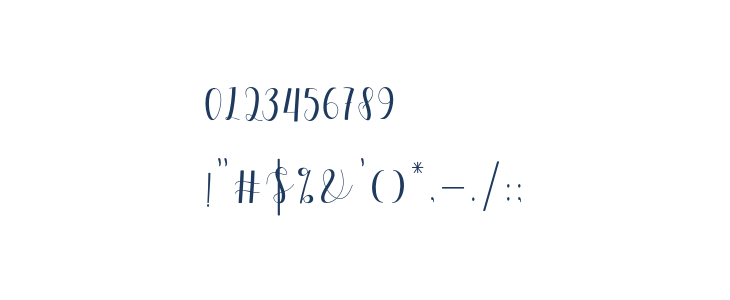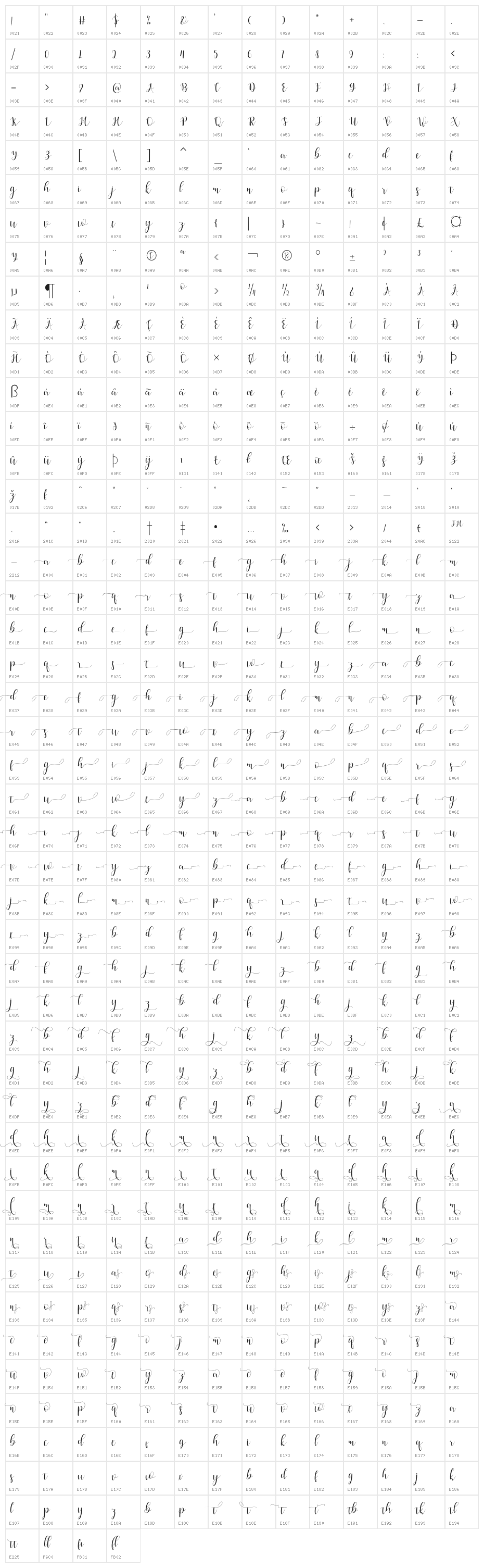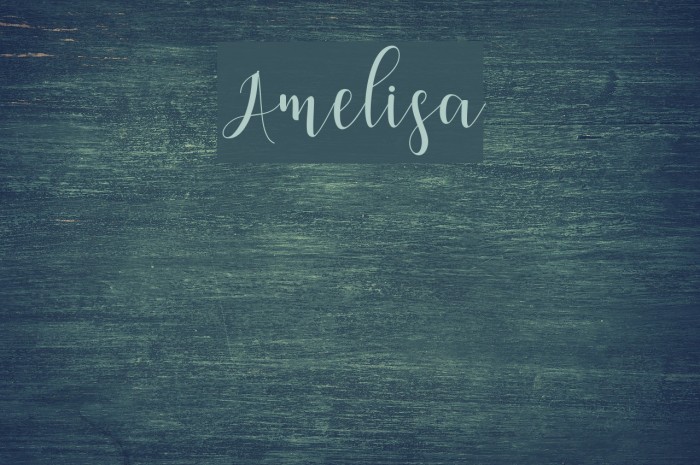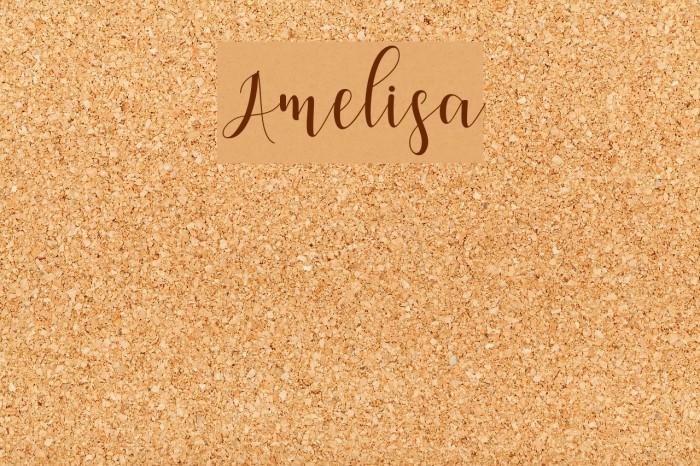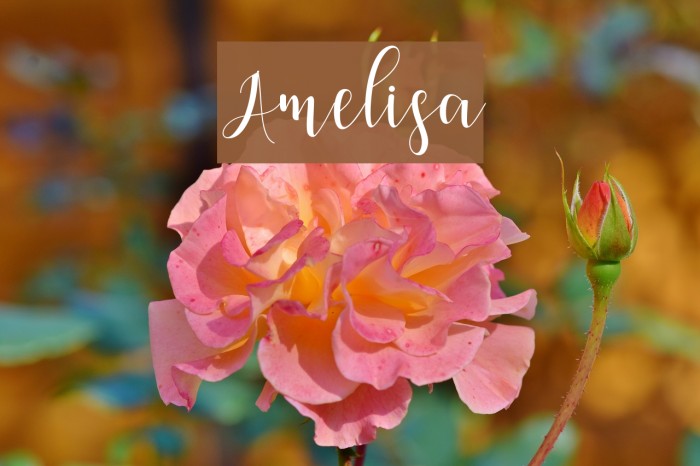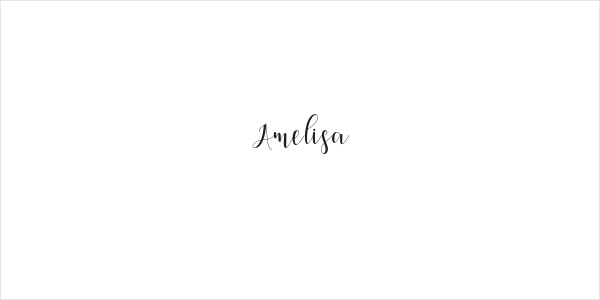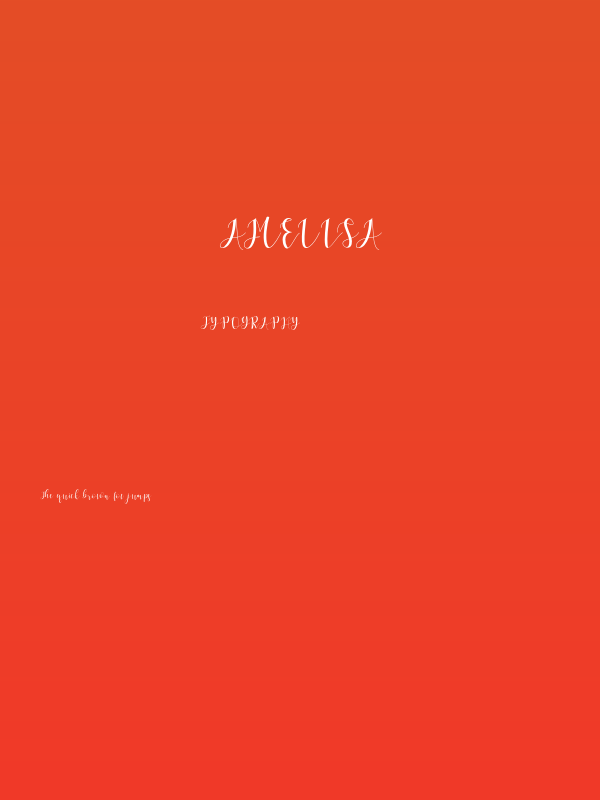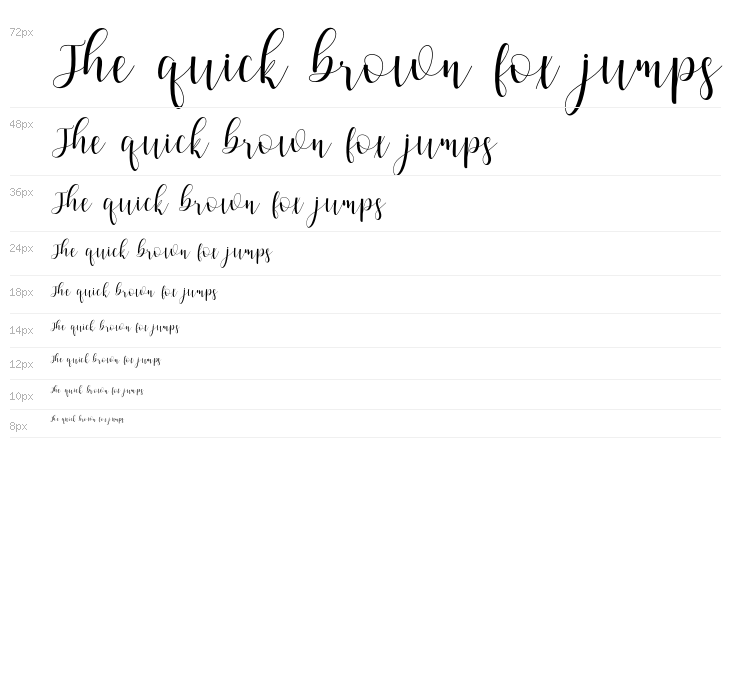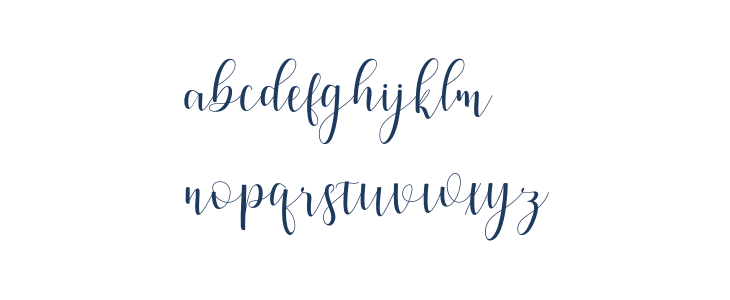
Amelisa Font
Amelisa Description
This elegant script font features flowing, interconnected letters with a graceful and sophisticated appearance. The uppercase letters exhibit a distinctive flair with sweeping curves and loops, while the lowercase letters maintain a consistent fluidity, enhancing readability. The numerals are stylishly designed to complement the overall aesthetic, and the special characters integrate seamlessly with the rest of the font. The font's delicate strokes and artistic flourishes make it ideal for projects that require a touch of elegance and refinement.
| Proposed Projects | Ideal for wedding invitations, elegant branding, greeting cards, and upscale packaging. |